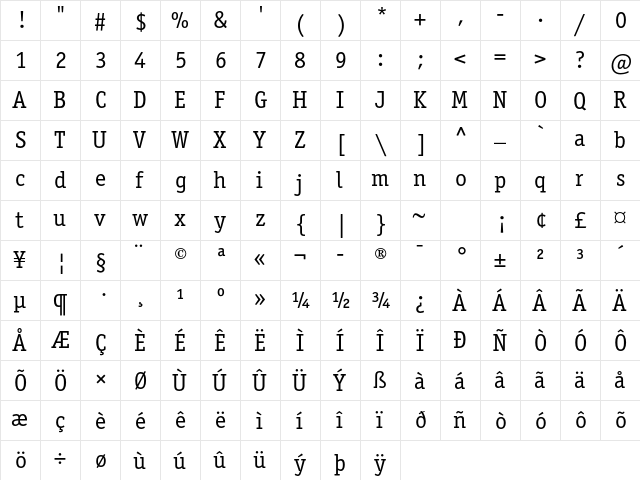
ITC Officina Serif Std Book
| Designer | Erik Spiekermann |
Design Context for ITC Officina Serif Std Typeface
ITC Officina Serif Std brings classic typographic sensibility to the table — its serifs and measured letterforms reflect centuries of print heritage.
Pro Tip: Use ITC Officina Serif Std for editorial body copy and considered headline work. Pair with a neutral sans for UI elements or captions to create a classic hierarchy.